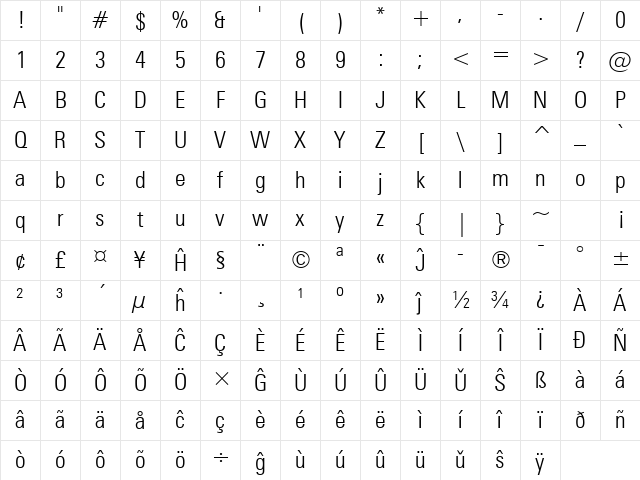
Zurich Eo Light
Zurich Eo Family
Design Context for Zurich Eo
Zurich Eo is a composed and adaptable typeface that performs quietly and consistently across a wide range of design contexts. Its slender proportions lend an understated elegance to any composition.
Pro Tip: Use Zurich Eo in both headline and body roles to test its range before committing to a single application.